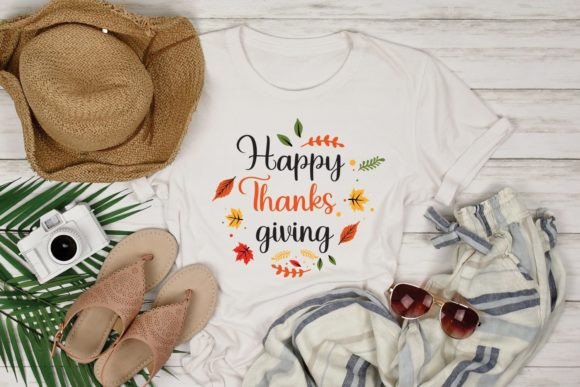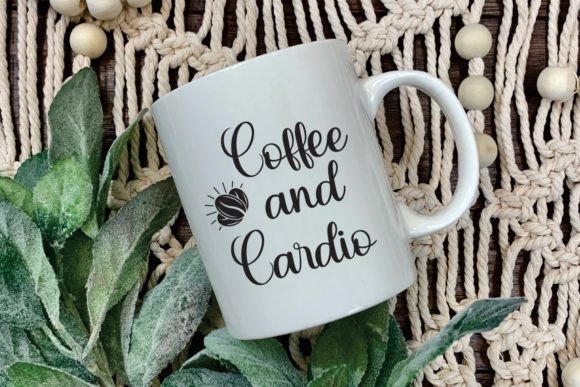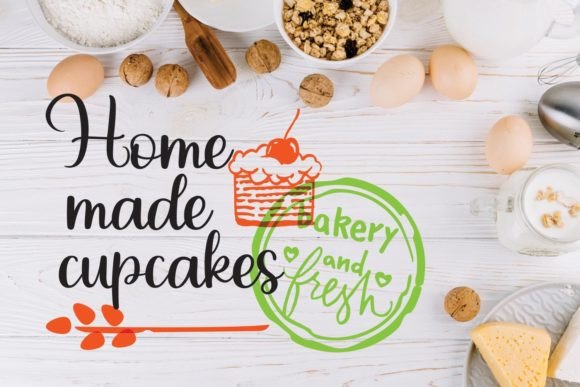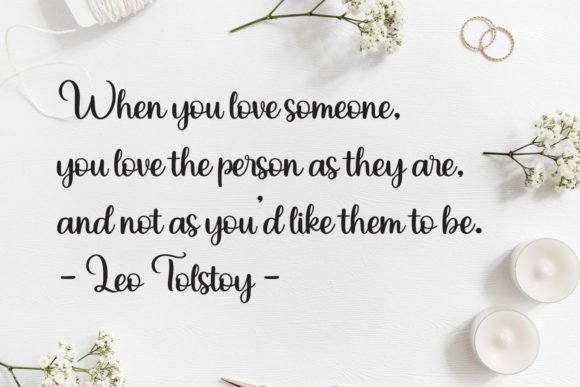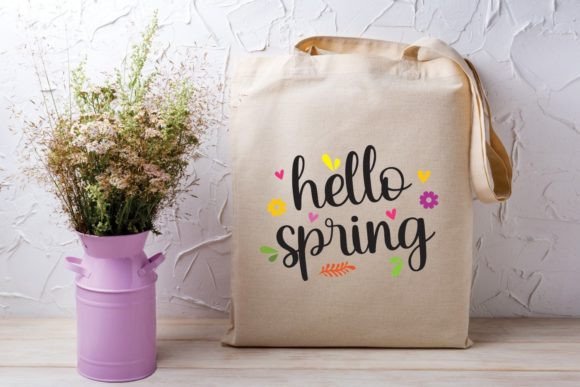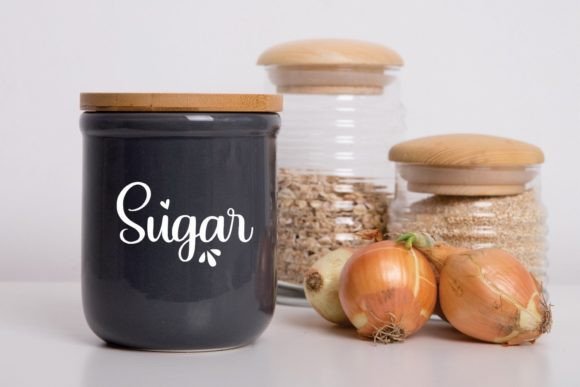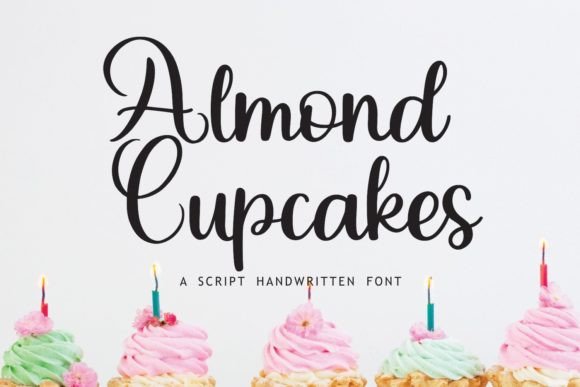
Introducing Almond Cupcakes Font: The Perfect Script Handwritten Font for Designers and Crafters
Are you looking for a unique and versatile font to elevate your designs? Look no further than Almond Cupcakes, a script handwritten font that is perfect for crafting, branding, and decorating any project. This quirky and natural hand-drawn font is ideal for designers and crafters who want to add a personal touch to their work.
What Makes Almond Cupcakes Font So Special?
Almond Cupcakes is a one-of-a-kind font that boasts an incredibly versatile style. Its hand-drawn design gives it a natural and whimsical feel, making it perfect for a wide range of projects. Whether you’re creating wedding invitations, blog posts, logos, or business marketing materials, this font is sure to impress.
Ideal for Wedding Invitations and Blog Posts
Almond Cupcakes font is particularly well-suited for wedding invitations and blog posts. Its elegant and cursive design makes it perfect for formal events, while its playful and whimsical feel makes it ideal for more casual blog posts. With this font, you can create beautiful and eye-catching invitations that will set the tone for your special day.
Perfect for Crafting and DIY Projects
Almond Cupcakes font is also perfect for crafting and DIY projects. Whether you’re creating handmade cards, scrapbooking, or making decorative items for your home, this font is sure to add a personal touch to your work. Its unique design makes it ideal for creating one-of-a-kind projects that will stand out from the crowd.
Use it for Your Business and Marketing Materials
But Almond Cupcakes font isn’t just limited to personal projects. It’s also perfect for businesses and marketing materials. Use it to create eye-catching logos, brochures, and advertisements that will help your business stand out. Its versatile design makes it suitable for a wide range of industries, from fashion and beauty to food and hospitality.
Key Features of Almond Cupcakes Font
- PUA Encoded: Almond Cupcakes font is PUA encoded, which means you can access all of the glyphs and ligatures with ease. This makes it easy to use and customize the font to suit your needs.
- Hand-Drawn Design: The font features a hand-drawn design that gives it a natural and whimsical feel.
- Script Handwritten Style: Almond Cupcakes font is a script handwritten font that is perfect for adding a personal touch to your designs.
- Versatile: The font is incredibly versatile and can be used for a wide range of projects, from wedding invitations to business marketing materials.
Tips for Using Almond Cupcakes Font
Here are a few tips for using Almond Cupcakes font:
- Experiment with Different Sizes: Try using the font in different sizes to create visual interest and add emphasis to certain elements of your design.
- Combine with Other Fonts: Almond Cupcakes font pairs well with other fonts, so don’t be afraid to experiment with different combinations.
- Use it for Headings and Titles: The font is perfect for headings and titles, where its elegant and cursive design can really shine.
Almond Cupcakes font is a unique and versatile script handwritten font that is perfect for designers and crafters. Its hand-drawn design and PUA encoding make it easy to use and customize, while its incredibly versatile style makes it suitable for a wide range of projects. Whether you’re creating wedding invitations, blog posts, logos, or business marketing materials, Almond Cupcakes font is sure to elevate your designs and add a personal touch.